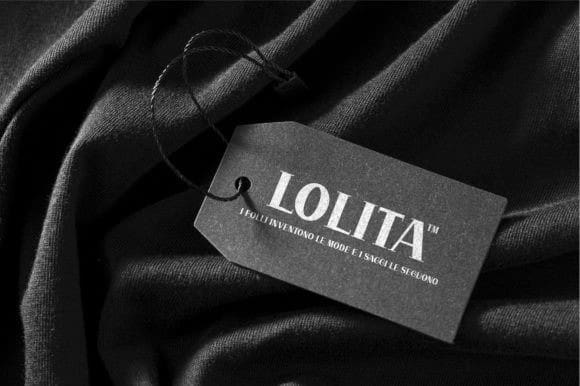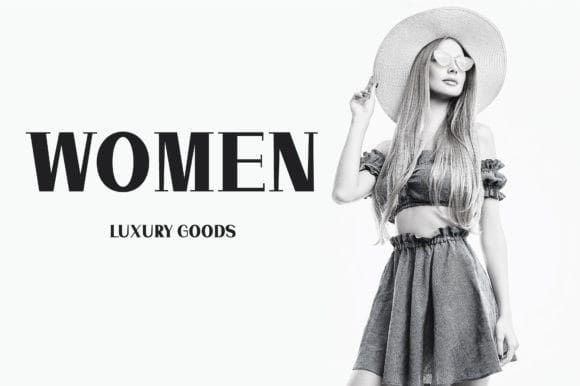
Lolita Slab Serif Font
Lolita Slab Serif  Font, as the name suggests, is a romantic typeface that was intended to express romantic sad themes. It also fits very well when it comes to fashion design, packaging design, cosmetics, and perfume design. It would be a great choice when you require a delicate yet elegant font to use in really particular creations.